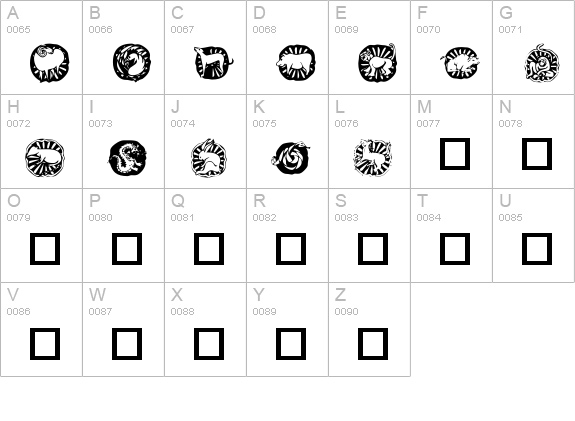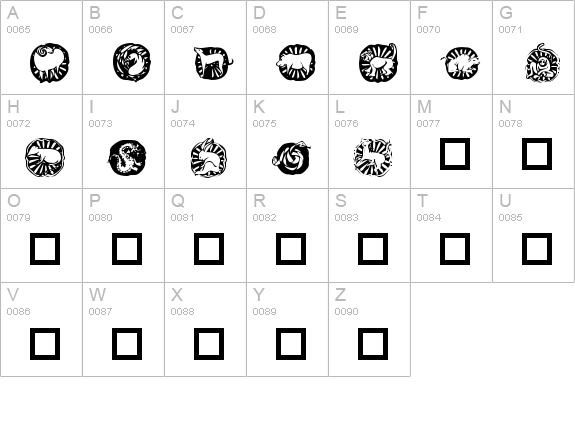
KR Chinese Zodiac Font Details
The KR Chinese Zodiac font is a beautifully crafted typeface inspired by the traditional Chinese zodiac symbols. Each character in this font embodies the rich cultural heritage and artistic essence of the Chinese zodiac signs, making it a perfect choice for various design projects. From posters to branding materials, this font adds a unique touch of elegance and sophistication. What sets the KR Chinese Zodiac font apart is its intricate details and exquisite design elements that truly capture the essence of each zodiac animal. Whether you're looking to add a touch of mystique or a hint of exotic flair to your designs, this font is sure to impress. Best of all, the KR Chinese Zodiac font is available for free download at FontsMarket.com. Now you can easily incorporate this stunning font into your projects without breaking the bank. Don't miss out on the opportunity to enhance your designs with the beauty and charm of the KR Chinese Zodiac font. Download it today and let your creativity soar!